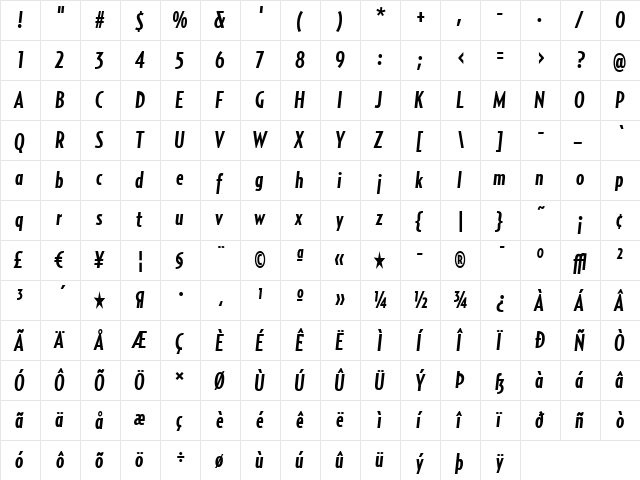
RelayComp-BoldItalic Regular Font Preview
| Designer | Cyrus Highsmith |
Design Context for RelayComp-BoldItalic Typeface
RelayComp-BoldItalic takes a measured approach to typography — its balanced proportions and neutral character make it a reliable workhorse for both digital and print work. The slanted form adds forward momentum and visual energy. The heavy weight commands attention and anchors typographic hierarchies.
Pro Tip: Use RelayComp-BoldItalic for emphasis, pull quotes, and subheadings where its slanted energy can add rhythm to the layout.